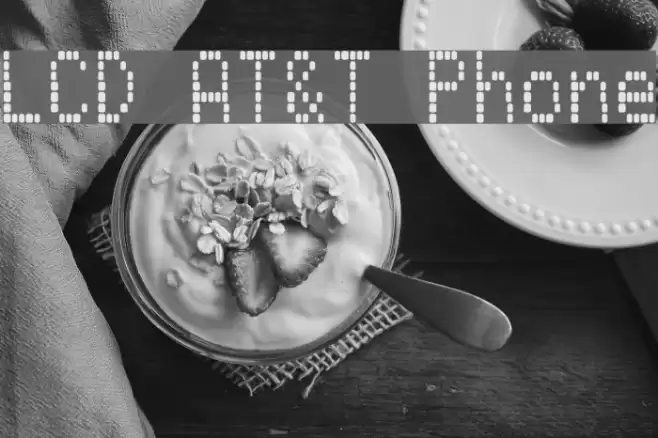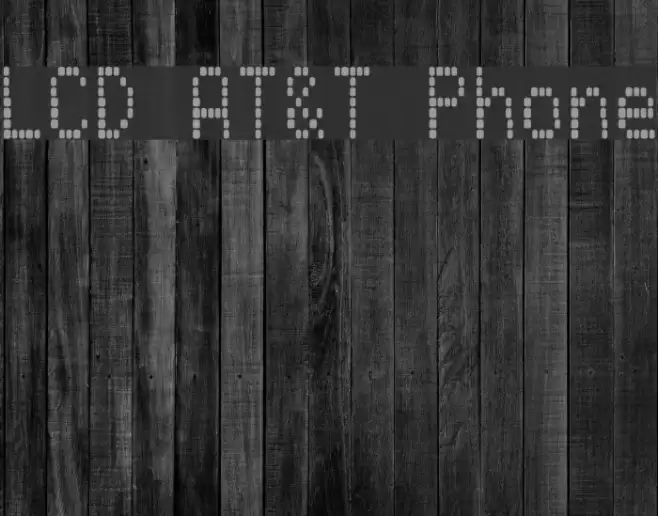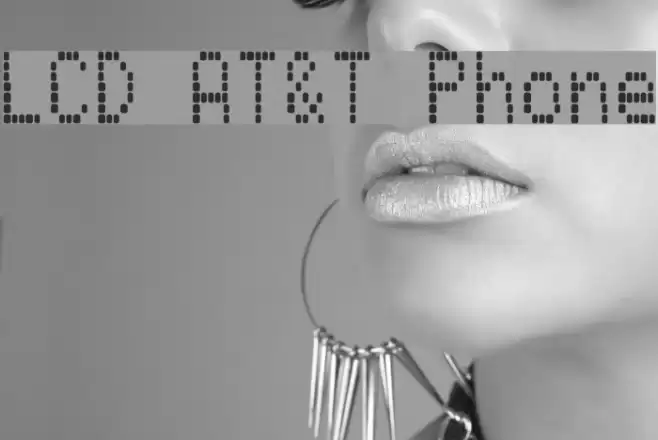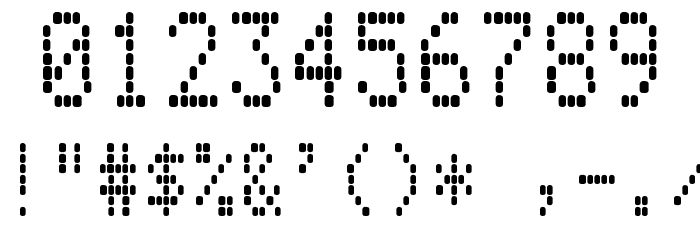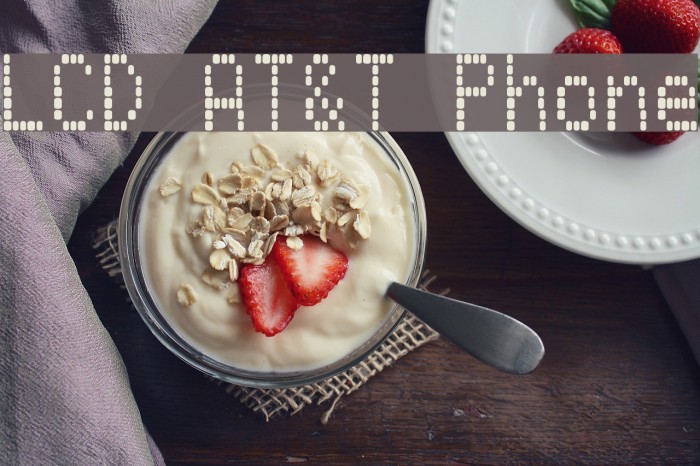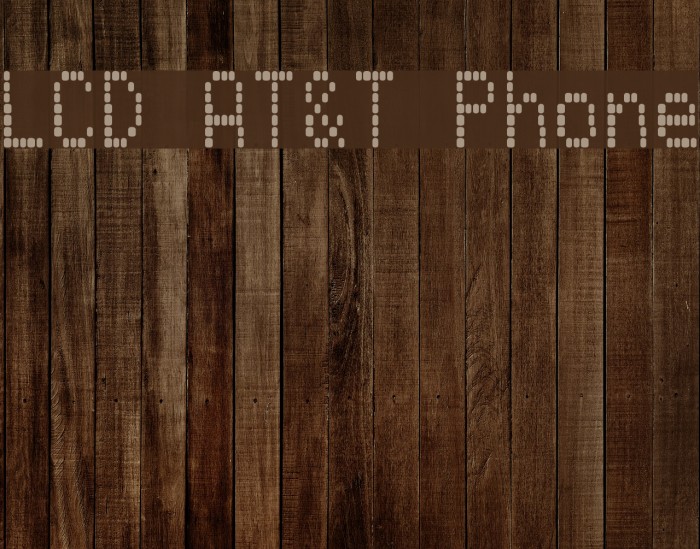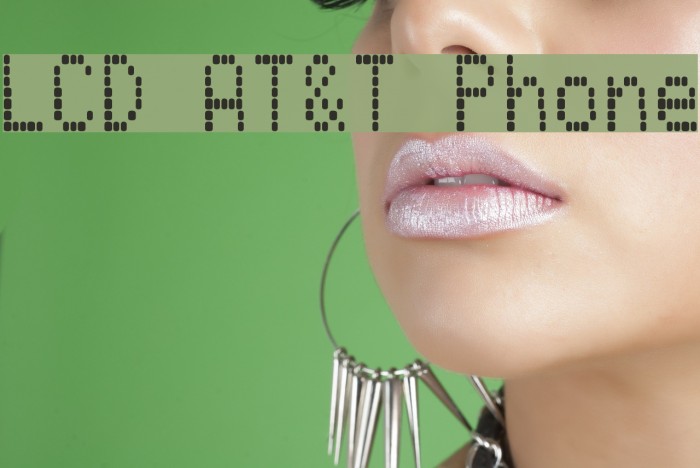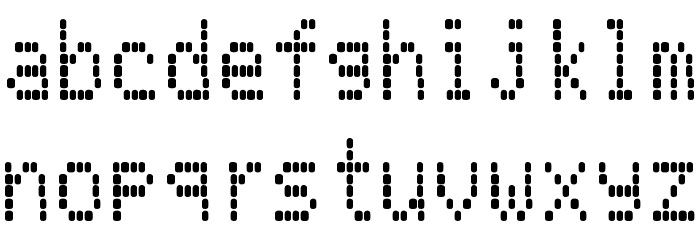
LCD AT&T Phone Font
LCD AT&T Phone Description
This font features a unique dot matrix design, reminiscent of old LCD displays. Each character is constructed from a grid of dots, creating a digital and retro aesthetic. The uppercase and lowercase letters maintain consistent spacing and alignment, giving a uniform appearance. Numbers and special characters follow the same dot pattern, ensuring a cohesive look across all glyphs. The style is highly legible and distinct, making it ideal for projects that require a technological or vintage digital feel.
A dot matrix font with a retro digital aesthetic from Futuristic fonts.
- Proposed Projects: Ideal for digital-themed designs, retro video games, tech-related branding, or any project needing a vintage digital look.
- Overall Style: Vintage
- Use Case: Headlines, Logos, Digital displays